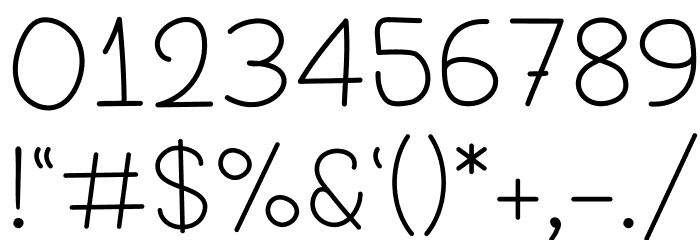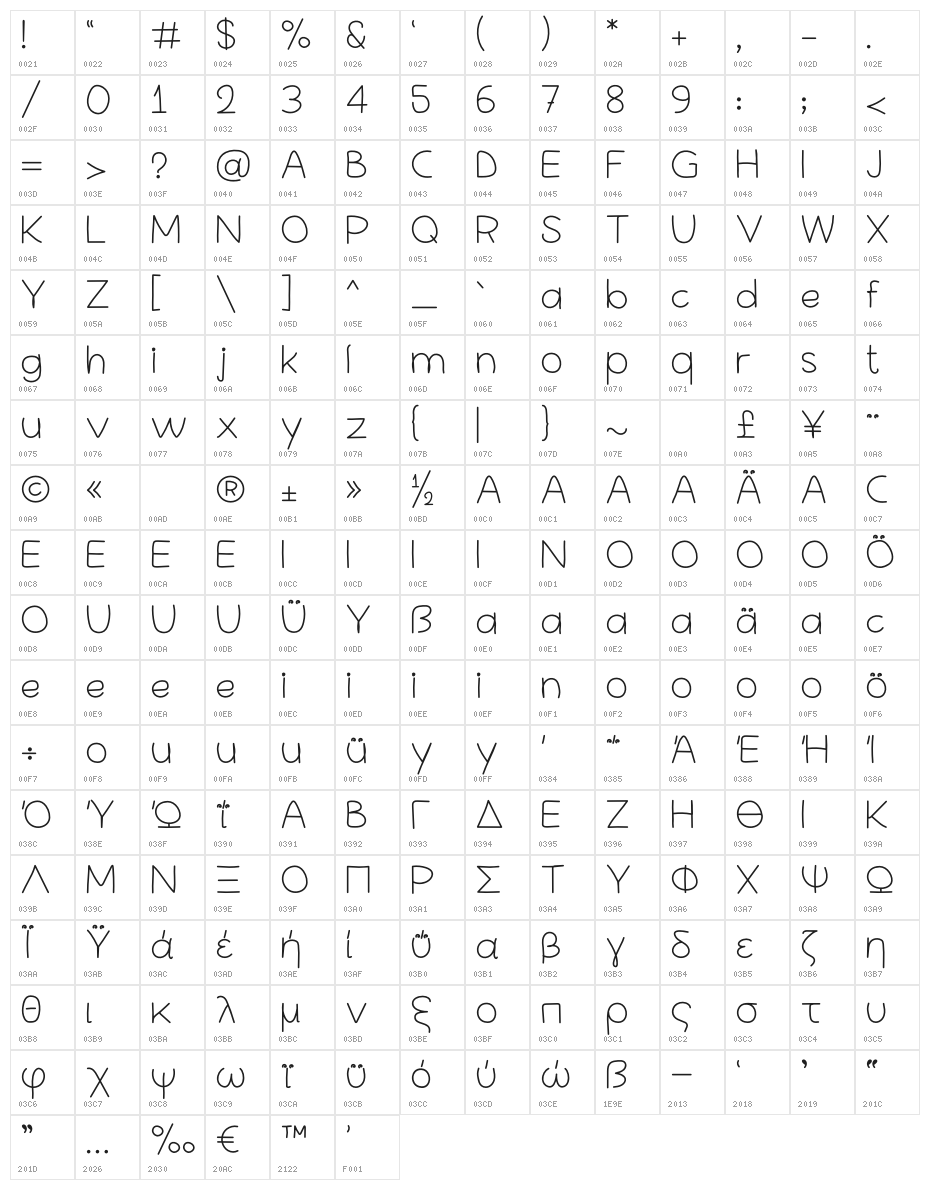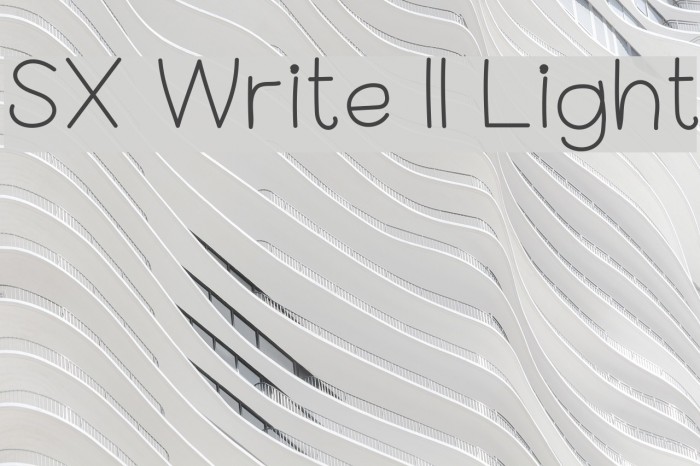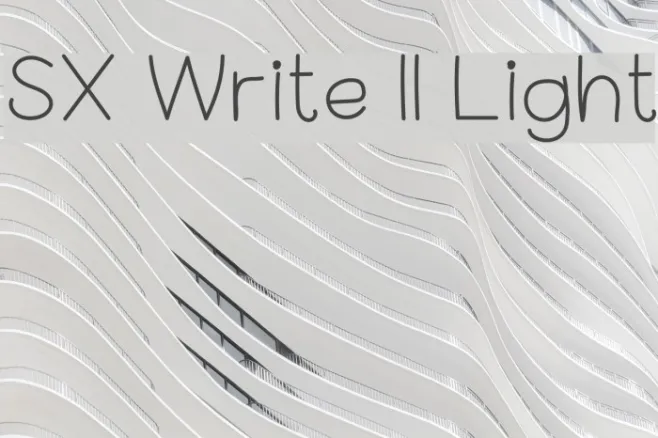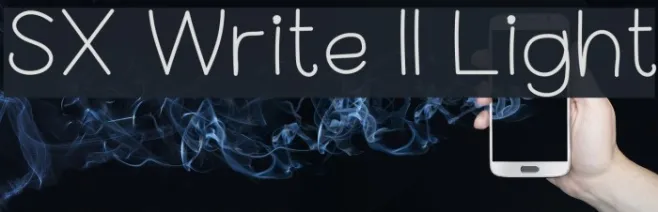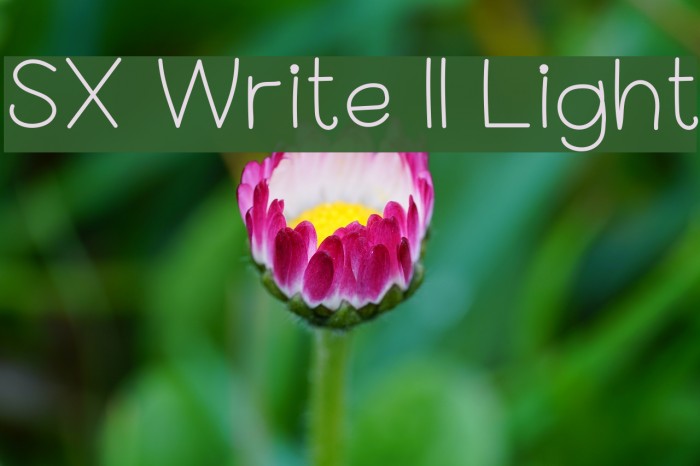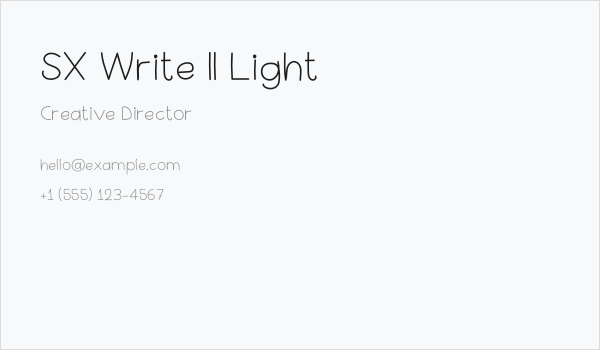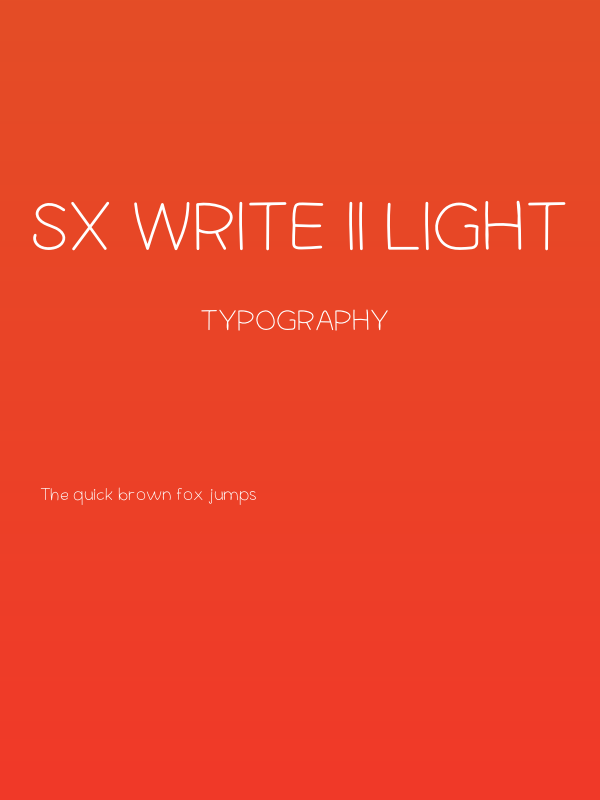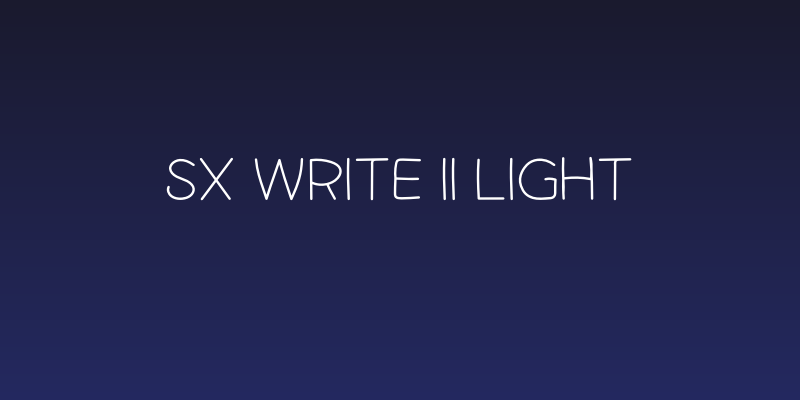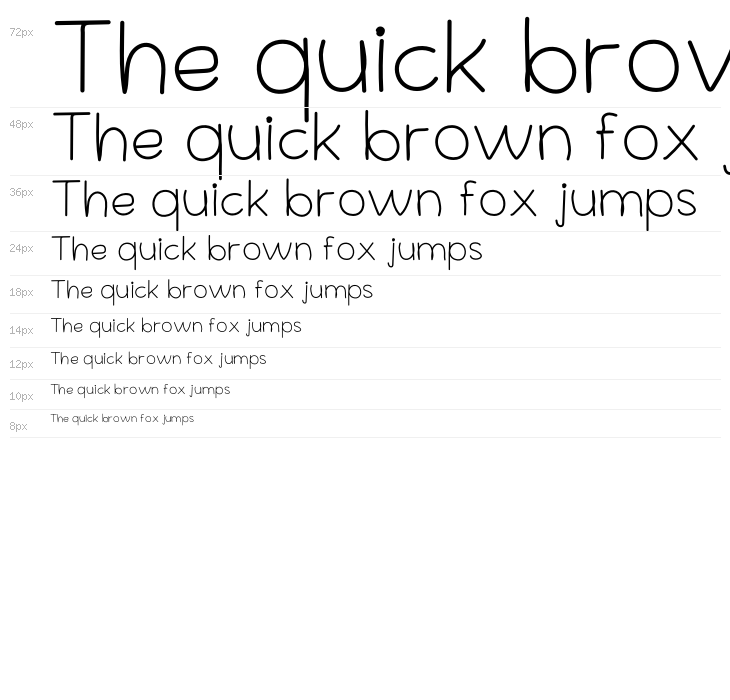
SX Write II Light Font
SX Write II Light Description
This font features a clean and simple design with rounded edges, giving it a friendly and approachable appearance. The characters are evenly spaced, providing a balanced and harmonious look. The uppercase letters are slightly taller than the lowercase, maintaining a consistent line weight throughout. The numerals are clear and legible, matching the style of the alphabet. Special characters are well-integrated, maintaining the overall aesthetic. This font is versatile, suitable for both digital and print media, offering a modern yet casual feel.
Use CaseHeadlines, Body text, Logos
Proposed ProjectsIdeal for children's books, educational materials, casual branding, and digital interfaces.